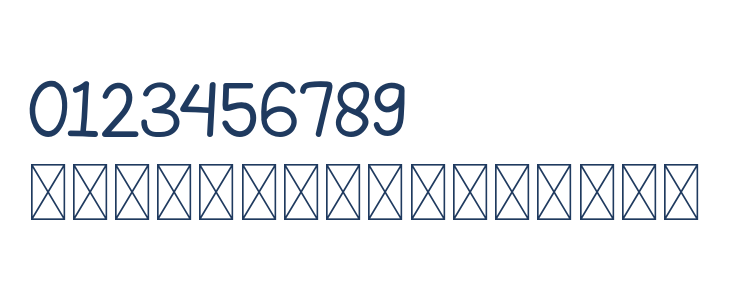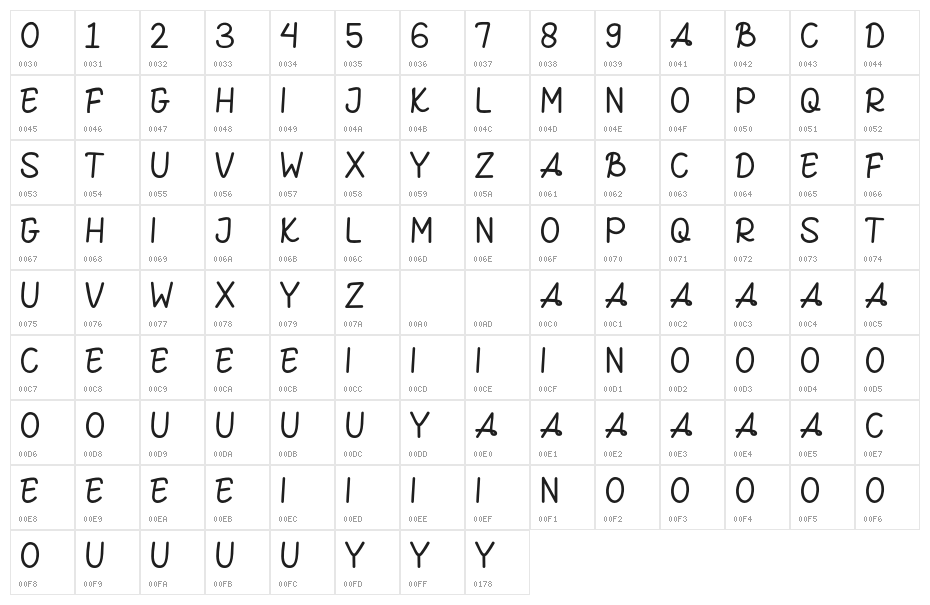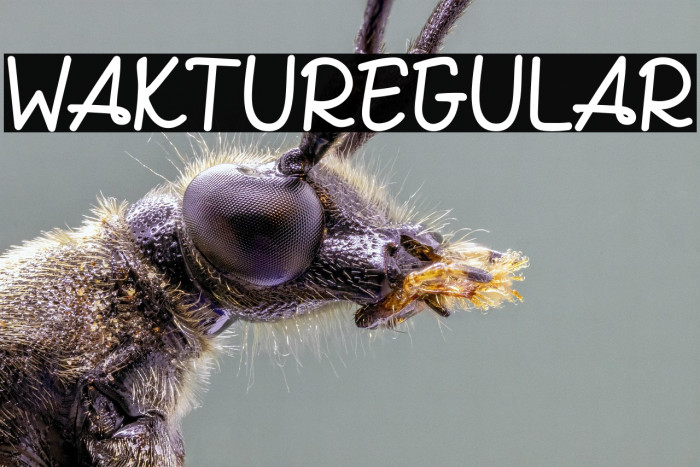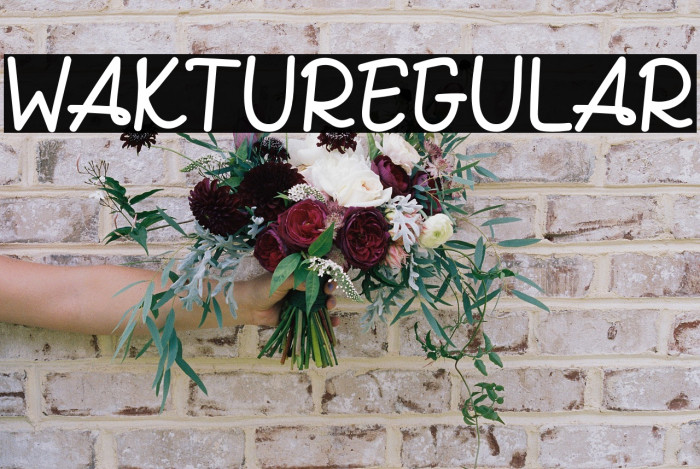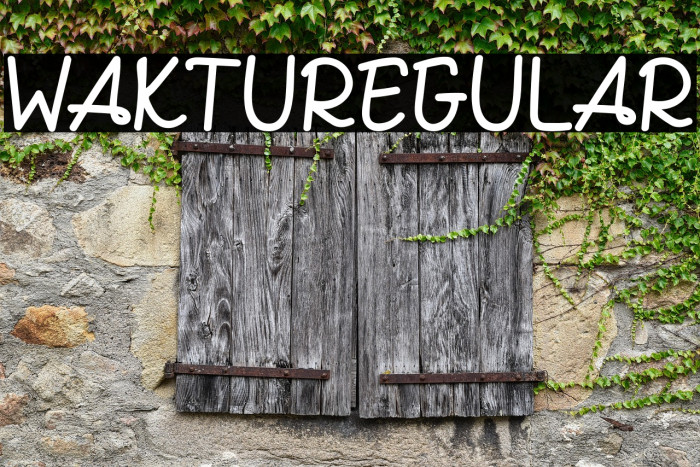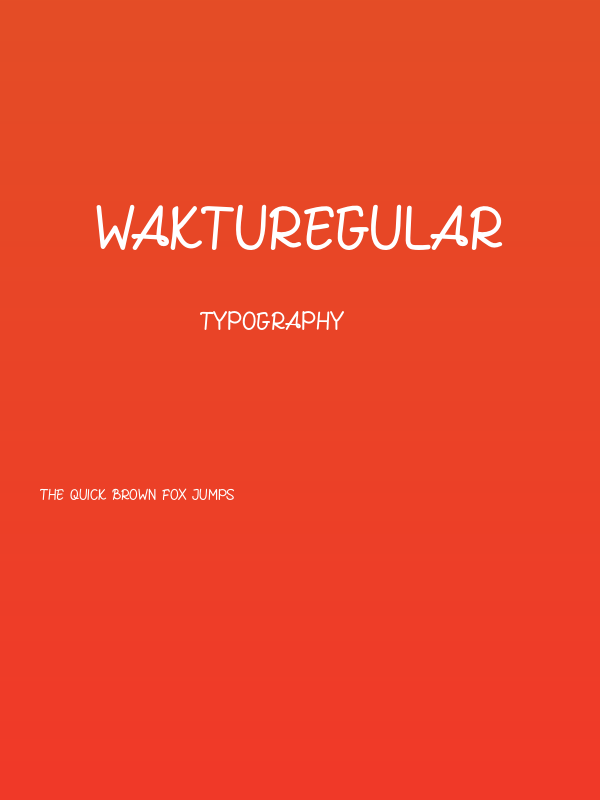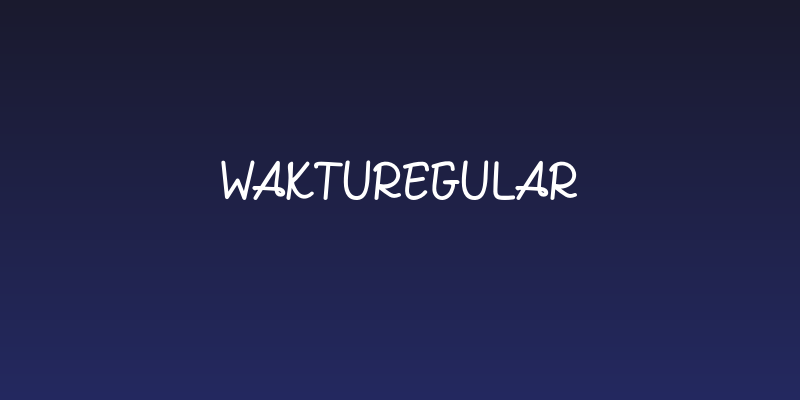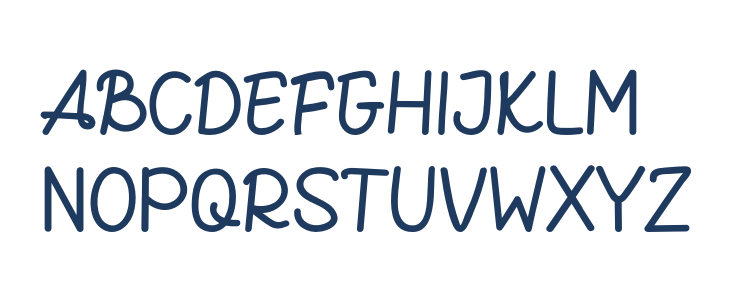
WAKTURegular Font
WAKTURegular Description
This font features a playful and casual style, characterized by its rounded edges and slightly slanted letters. The uppercase and lowercase letters maintain a consistent flow, giving it a handwritten appearance. The numbers are clear and easy to read, matching the overall style of the alphabet. The font is versatile, suitable for both informal and creative projects. Its smooth curves and balanced proportions make it appealing for a variety of uses, from invitations to branding materials.
| Proposed Projects | Ideal for greeting cards, invitations, children's books, and creative branding. |